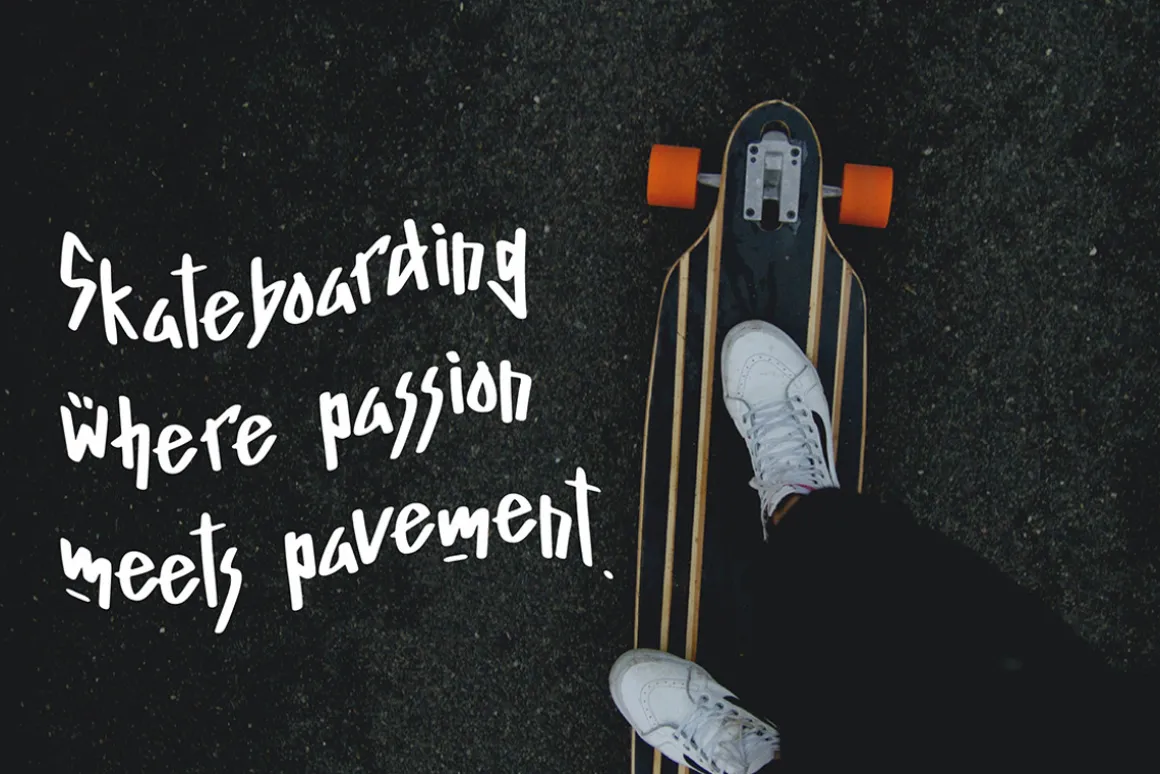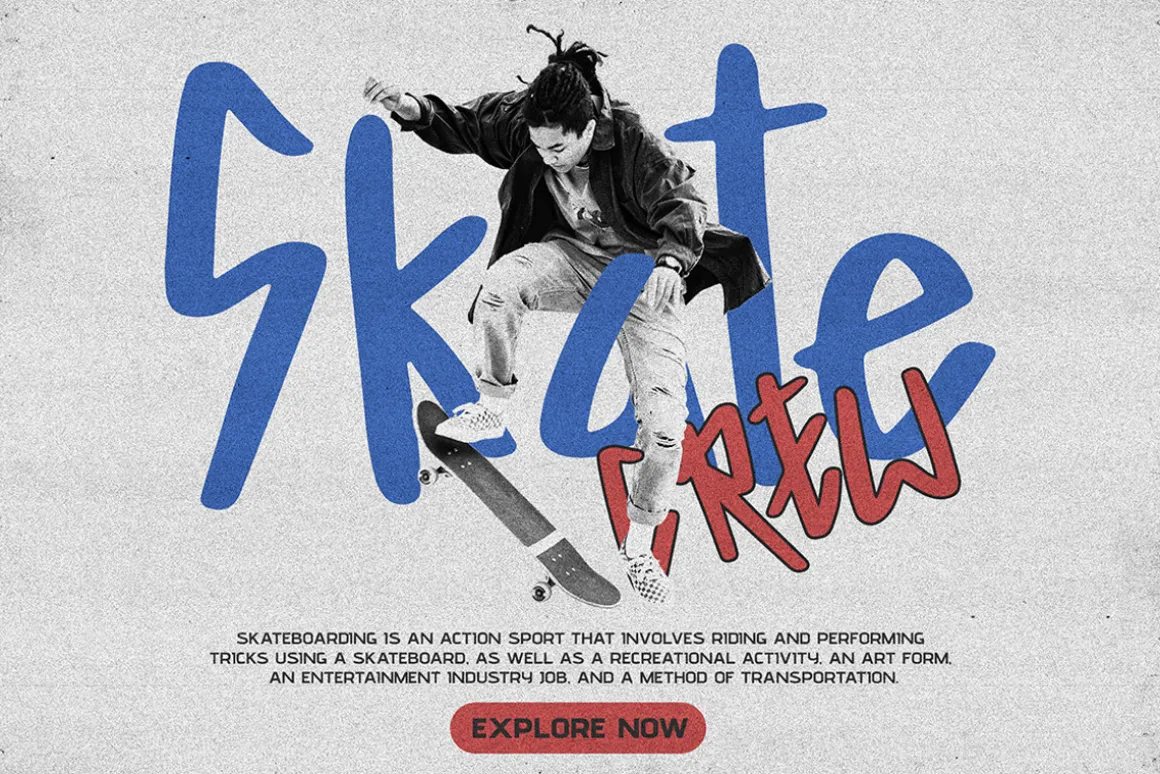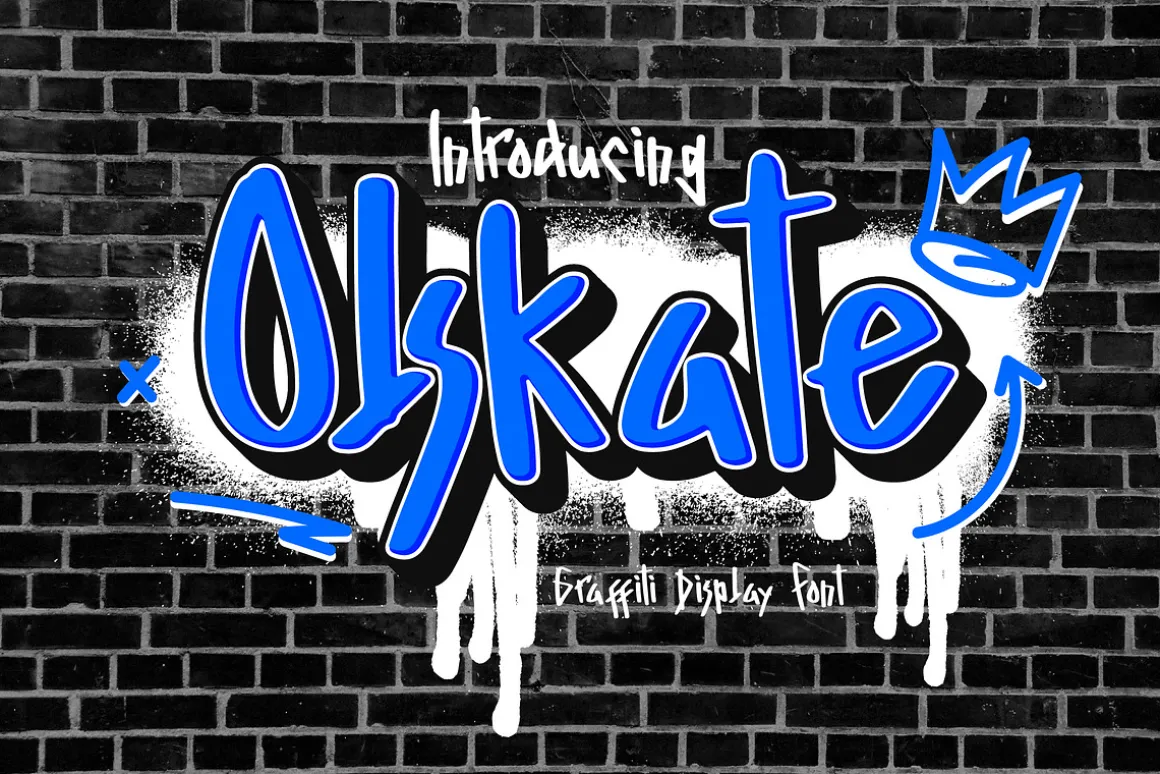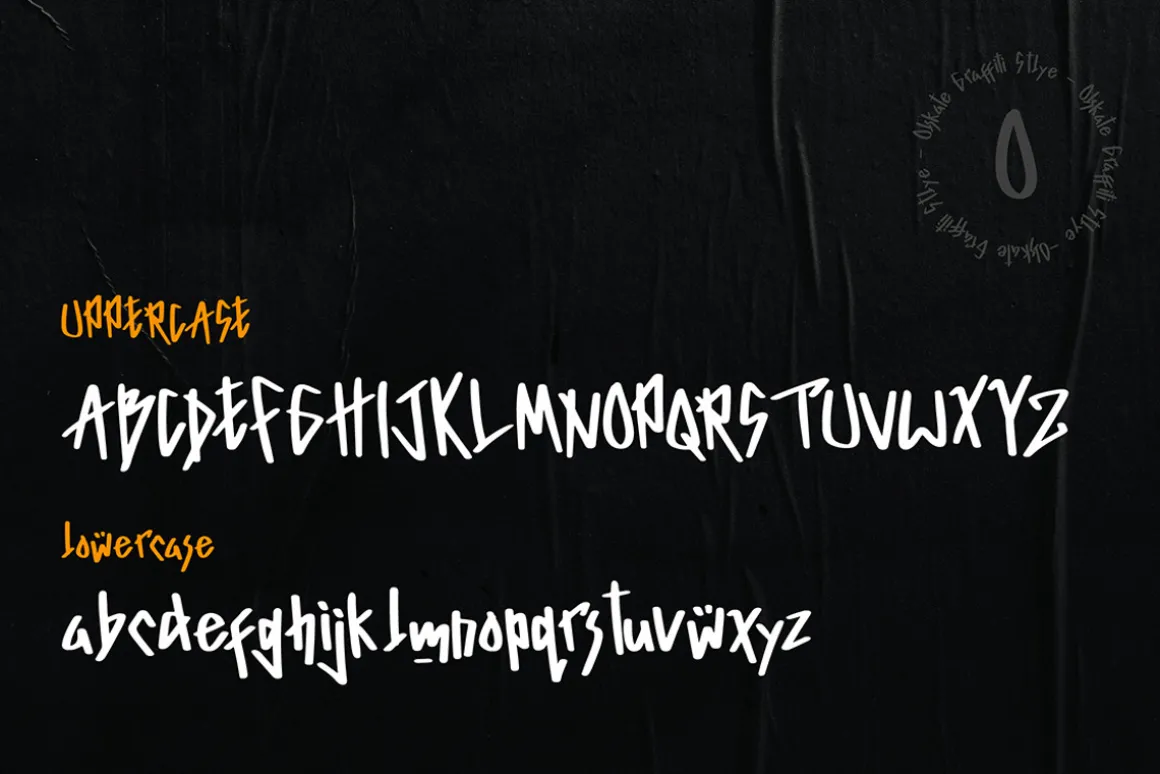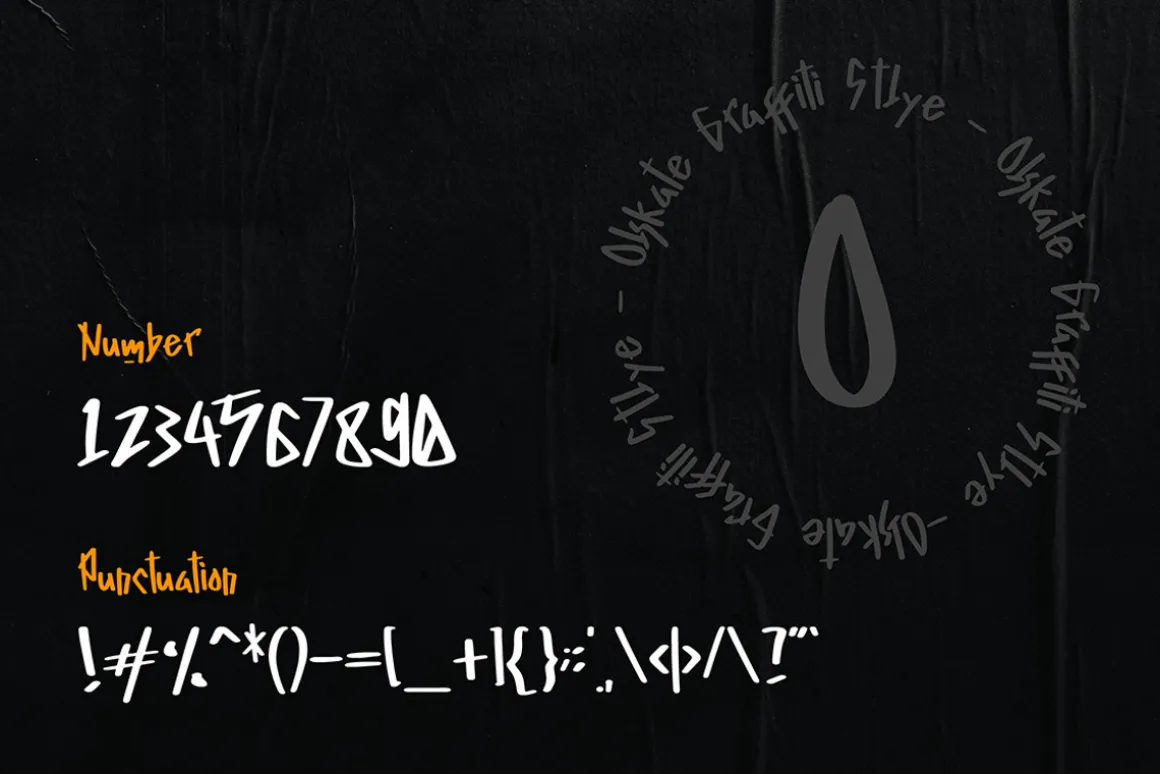
Olskate is awesome with modern cutouts, and a dynamic slant. Ideal for Poster titles, Flyer music events, Skateboarding, Urban street style, streetwear, and monograms, or other modern dynamic text. Olskate compares favorably with legibility and size, creating the effect of power. Designed as a fast and dynamic font, but with a slightly different font design, check it out and grab it right away.